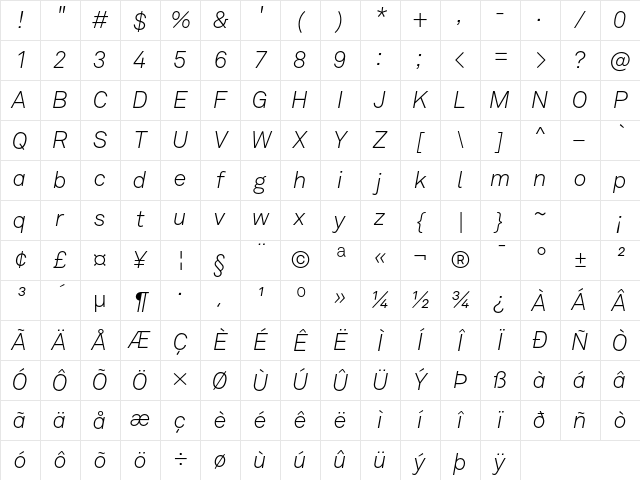
Akkurat Light Italic
Foundry: Laurenz Brunner
Designer: Laurenz Brunner
Design Context for Akkurat Light
Akkurat Light is a composed and adaptable typeface that performs quietly and consistently across a wide range of design contexts. The slanted form adds forward momentum and visual energy. Its slender proportions lend an understated elegance to any composition.